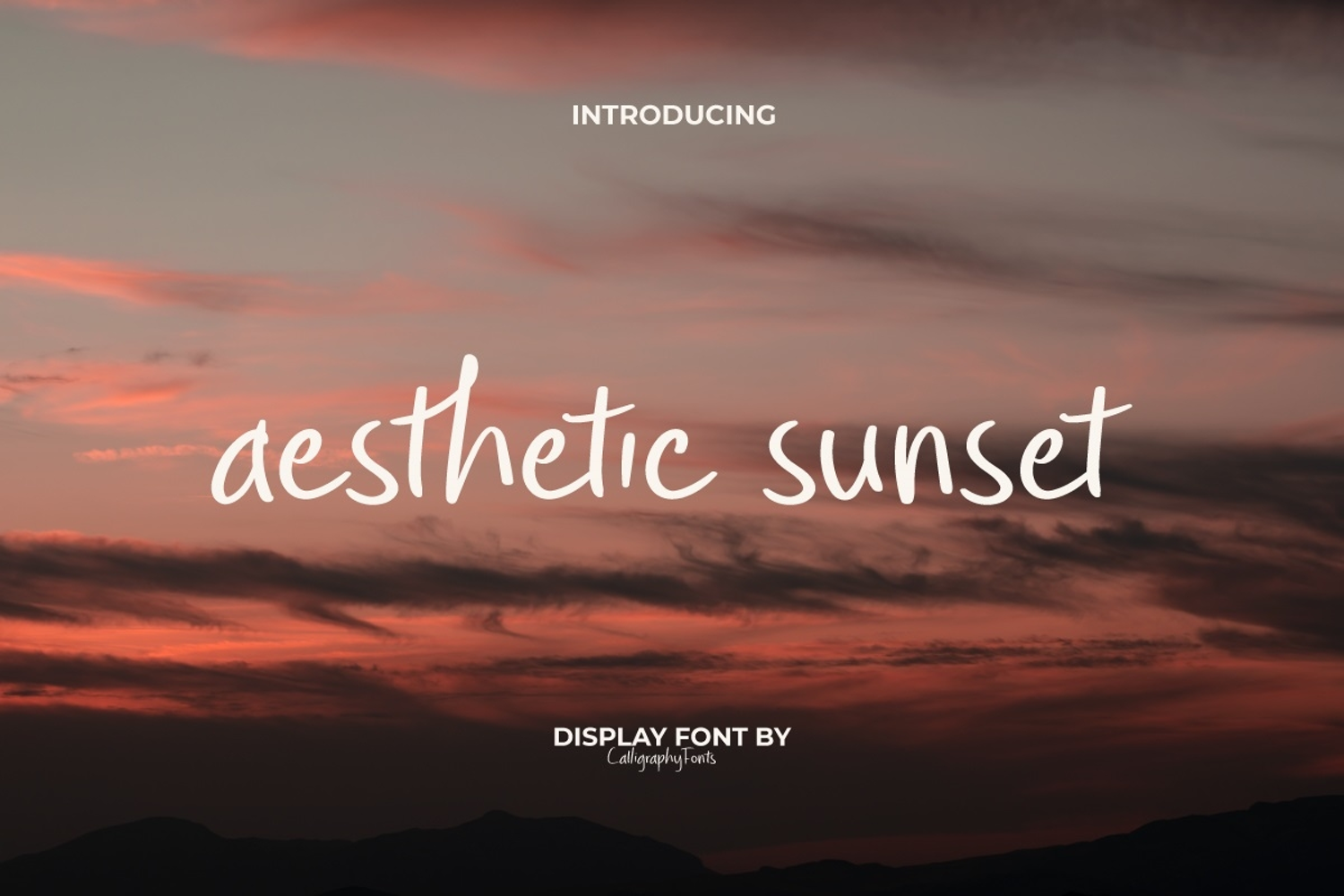
Aesthetic Sunset Font
Aesthetic Sunset Font is a casual warm handwritten and easy-to-read font. Its adaptability extends to multiple languages, ensuring seamless integration into your global design projects. You can use this font for apps, brochure, covers, displays, food wrapping paper, flyer, headers, label tag, mockup, print product, product packaging, quotes, template, title, watermark, and much more.
Say hello to Aesthetic Sunset – a beautifully crafted display font that captures the calm, golden glow of the evening sky. Designed with a modern, minimalist touch, this font brings effortless elegance to your visuals. Perfect for logos, product packaging, quotes, Instagram posts, blog headers, and more — Aesthetic Sunset gives your projects a soft, serene, and stylish vibe.
Meet Aesthetic Sunset — a soft, stylish display font inspired by golden hour skies, summer nostalgia, and minimal elegance. Perfect for projects that need a warm, dreamy vibe. From branding and Instagram posts to posters, packaging, and lifestyle blogs, Aesthetic Sunset brings a touch of calm sophistication with its smooth curves and soft character.
Meet Aesthetic Sunset, a soft and stylish display font inspired by warm skies, dreamy evenings, and effortless minimalism. Whether you’re crafting a lifestyle brand or creating content with emotional depth, this font brings calm energy and artistic elegance to your work. Designed to shine in logos, social media posts, product packaging, blog graphics, and more — Aesthetic Sunset Display Font captures the beauty of simplicity with a soft, sun-kissed edge.
• Unique, aesthetic display style
• Uppercase, lowercase
Aesthetic Sunset Font is an aesthetic display font handcrafted that is simple. Designed in a concise casual and trendy handwriting. It will be perfect for attracting attention and is suitable for advertisement, authors, cafes, corporate, fashion, graphic design, handicraft, home furniture, movie, organization or community, photography, travel agency, writer, and others.